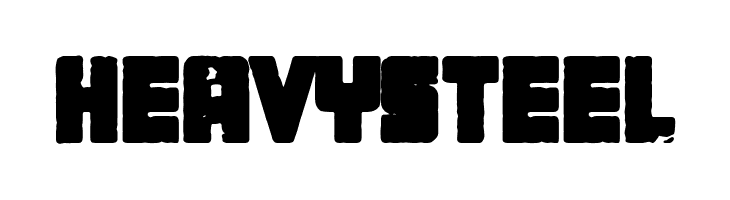
A bold, fragmented font with sharp, angular cuts for a dynamic and edgy look.
A bold, geometric font with a three-dimensional, industrial style.
A bold, distressed slab serif font with a vintage, rugged appearance.
A bold, dotted font with a unique, textured appearance.
A bold, grungy font with a distressed, hand-drawn appearance.
A bold, rounded, and playful font with a hand-drawn feel.
A bold, jagged font with a heavy metal aesthetic and high contrast.
A bold, distressed font with a rugged, vintage appearance.
A bold, geometric font with circular and semi-circular elements.
A rugged, distressed font with a bold, vintage appearance.